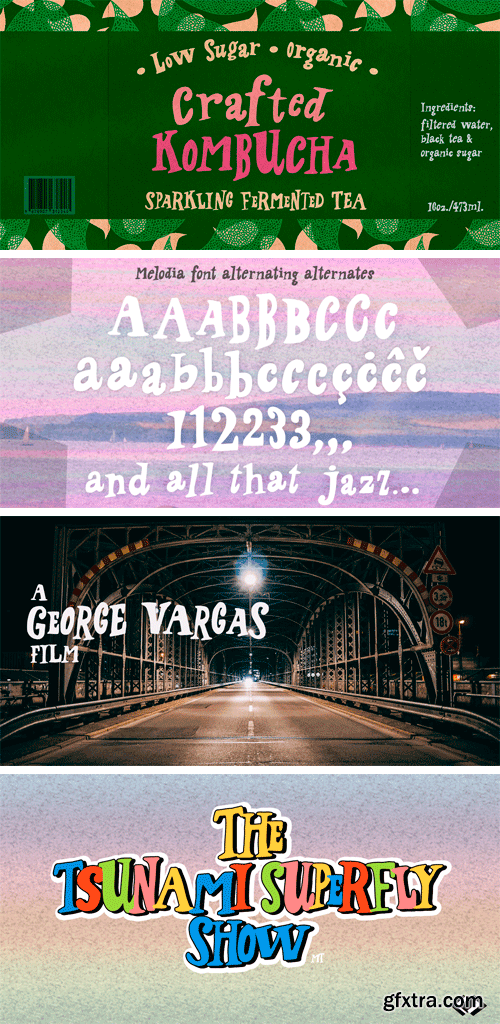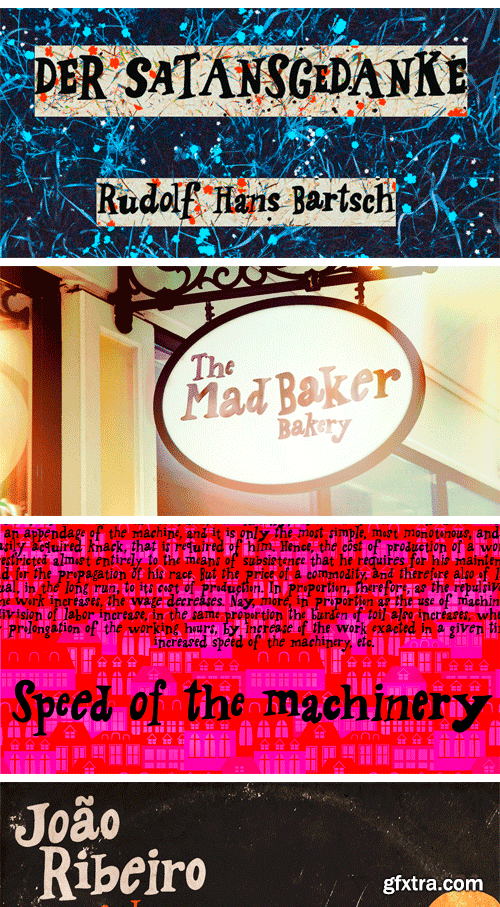
This one may look rather strange at a first sight, but it has the true power of coolify written pieces. (Please don’t use it to say “Attorneys’s Conference”, nor “Annual Statement of Accounts”, unless you mean them to be cool, which is very unlikely.) Melodia has 3 glyph drawings for each uppercase letter, 3 more for each lowercase and 2 for the numerals. There are even alternates for punctuation, go figure: there are 3 commas and 3 periods. Surprising. To activate the automatic cycling of all these alternates, simply turn on the Contextual Alternates feature in your application. And it doesn’t hurt to remind: use it only on cool stuff.